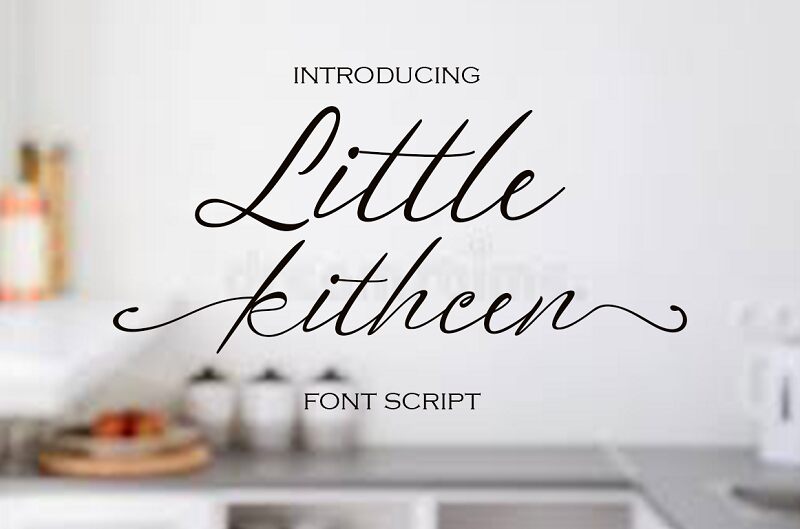
Little Kitchen
Little Kitchen, a captivating handwritten font crafted by Ayudia Creative, exudes a charming and whimsical essence. The fluid, organic strokes and playful ligatures create an inviting, homespun aesthetic, evoking a sense of warmth and authenticity. The font's natural, handcrafted appearance lends an artisanal touch, making it an alluring choice for projects seeking to convey a heartfelt, artisanal vibe.
This versatile font shines in a variety of design applications, from rustic-inspired branding and packaging to cozy cookbook covers and menu designs. Its distinctive character makes it a captivating option for establishing a genuine, handmade-inspired ambiance, whether in the realm of food and hospitality or in any creative venture aiming to cultivate a genuine, homespun appeal.